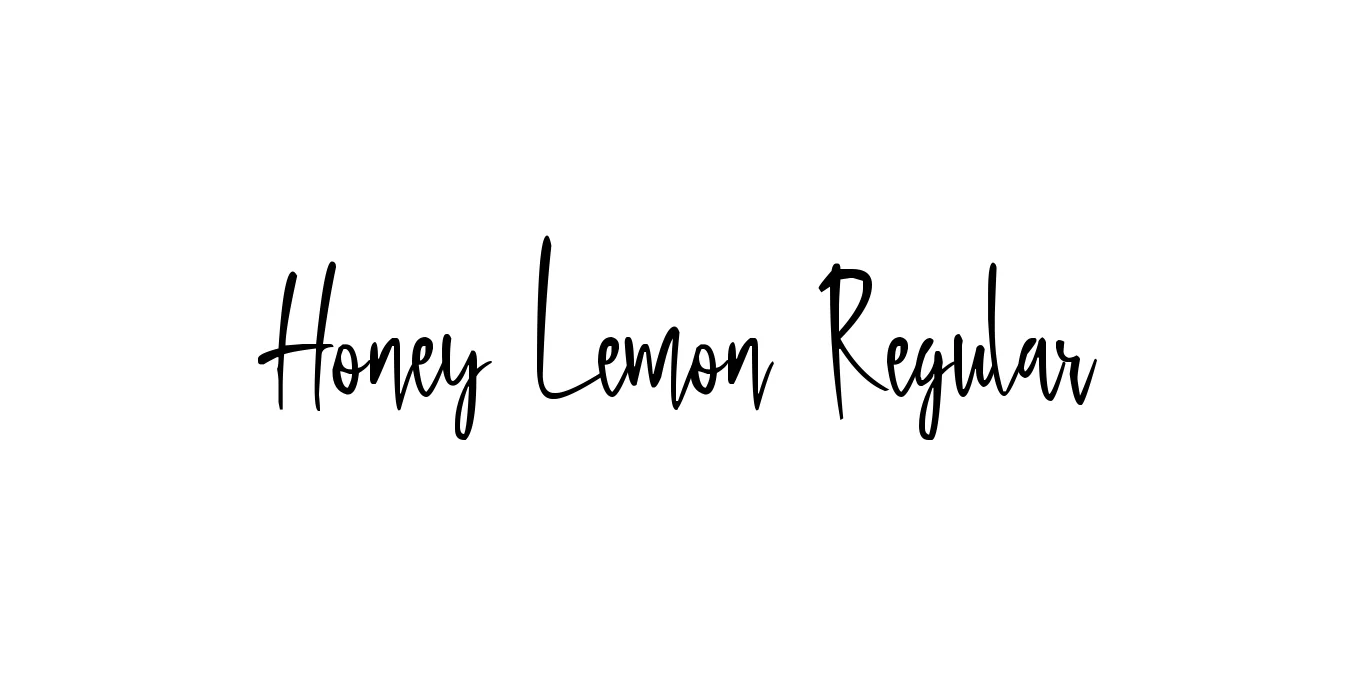
Honey Lemon Regular
Designed by Sibelala
Honey Lemon Regular is a charming and whimsical handwritten script font that captures the essence of casual elegance. Developed by the design studio Sibelala, this typeface features fluid, monolinear strokes and playful loops that evoke a sense of warmth and personal touch. Its bouncy baseline and organic flow make it an ideal choice for projects that require a friendly, approachable aesthetic without sacrificing legibility in display headers.
Since its release, Honey Lemon has become a favorite among DIY enthusiasts and professional designers alike for its extreme versatility. The font is particularly well-suited for branding, social media graphics, and personalized stationery. Whether used for a boutique bakery logo or a modern wedding invitation, the font provides a cohesive, handcrafted look that stands out in both digital environments and printed mediums.
Honey Lemon Regular Best Uses
Perfect for romantic invitations, save-the-dates, and elegant place cards.
Ideal for Instagram quotes, Pinterest graphics, and blog headers needing a personal touch.
Great for feminine logos, packaging design, and boutique brand identities.
Adds a heartfelt, handcrafted feel to birthday, thank you, or holiday cards.